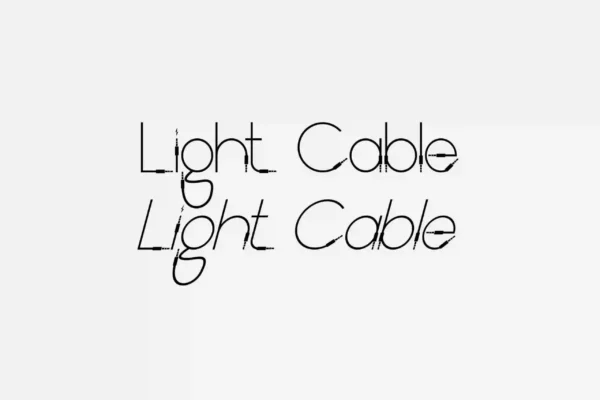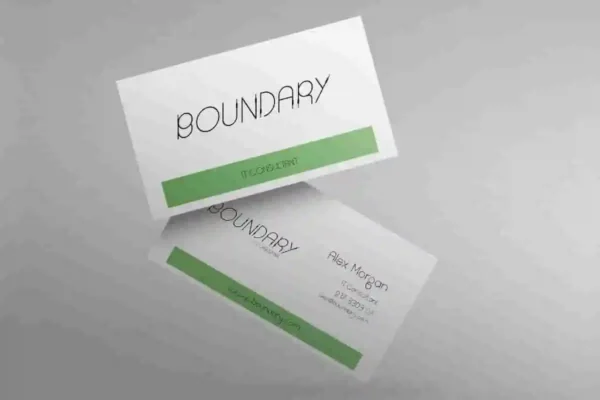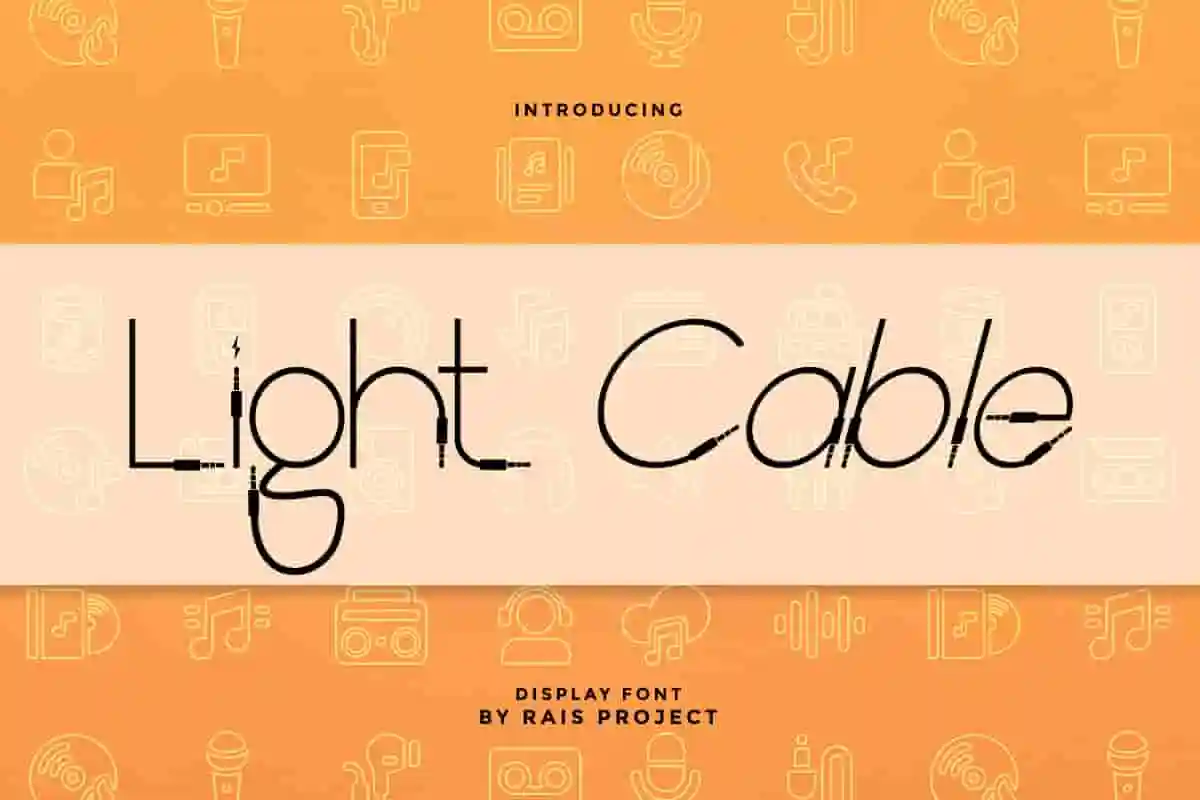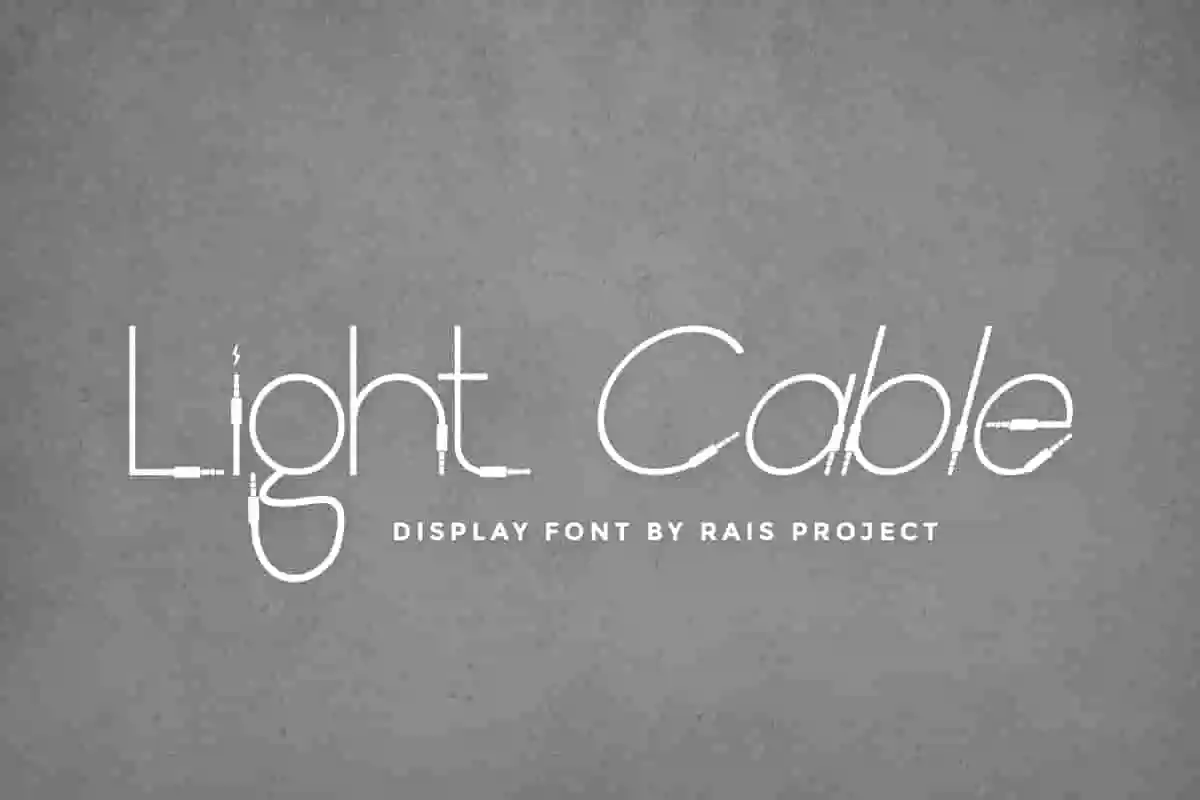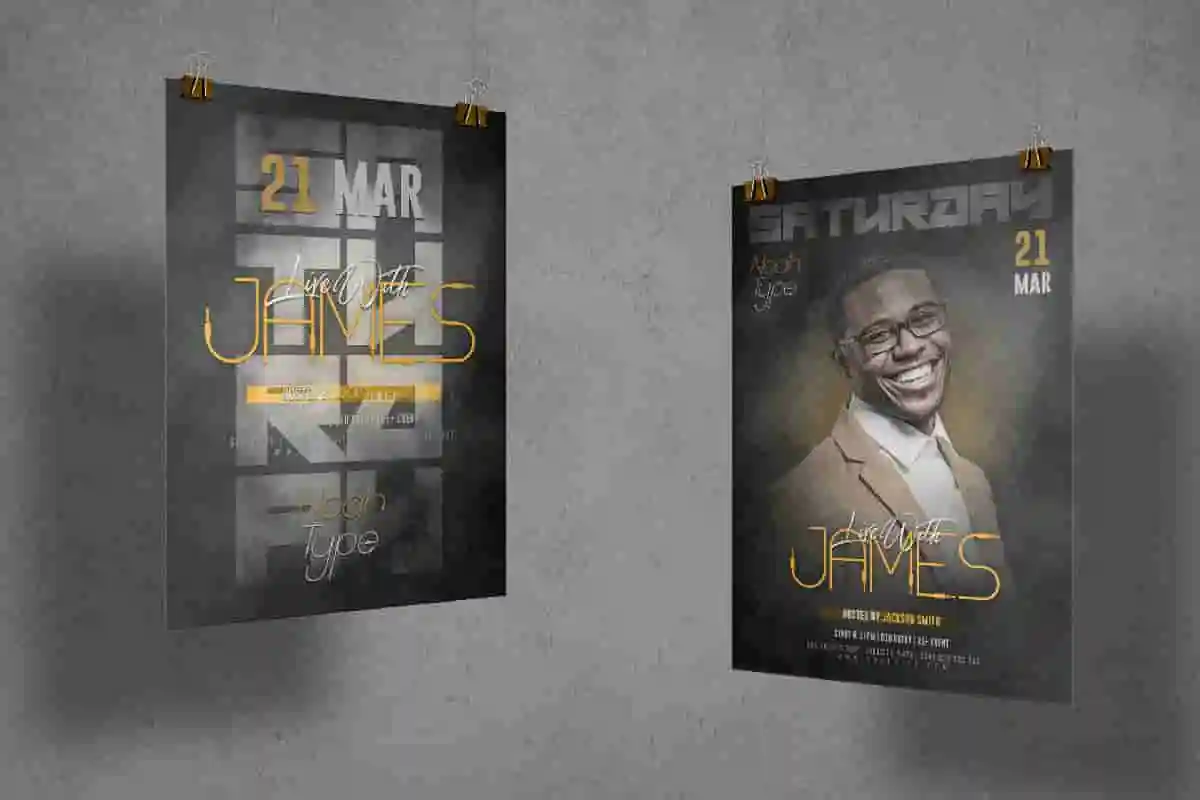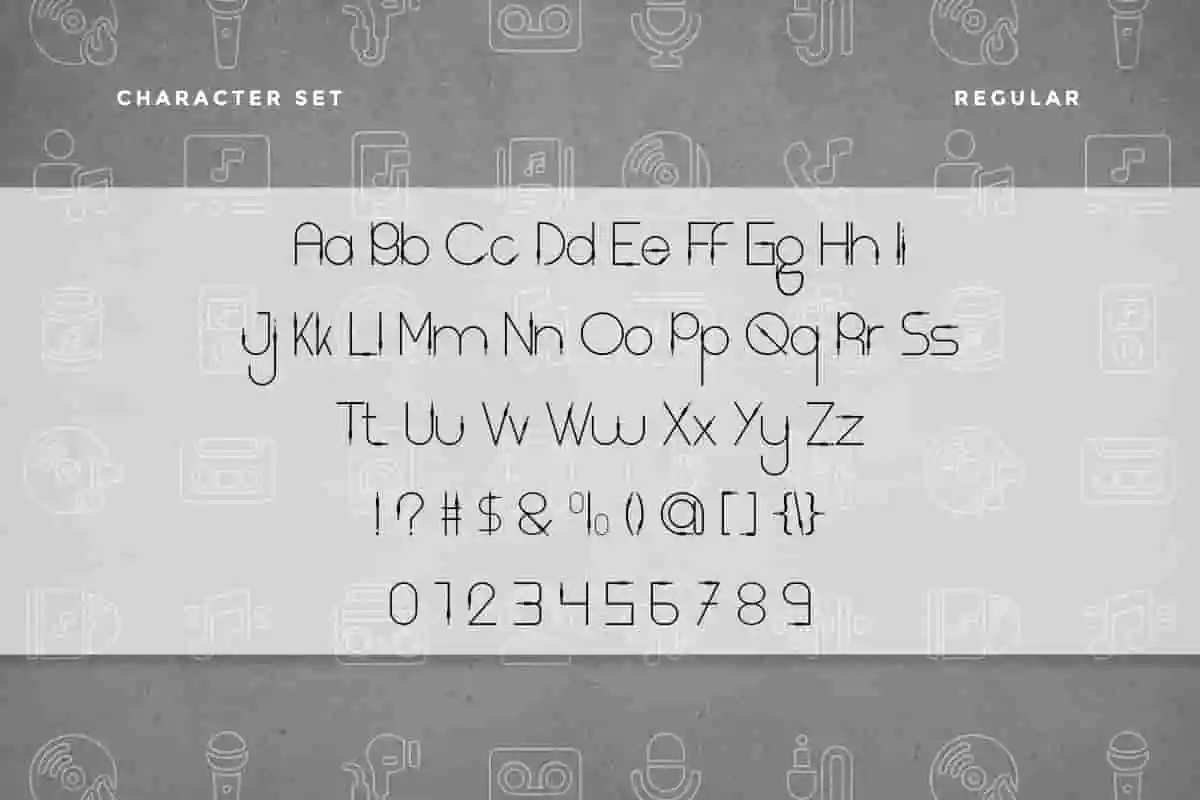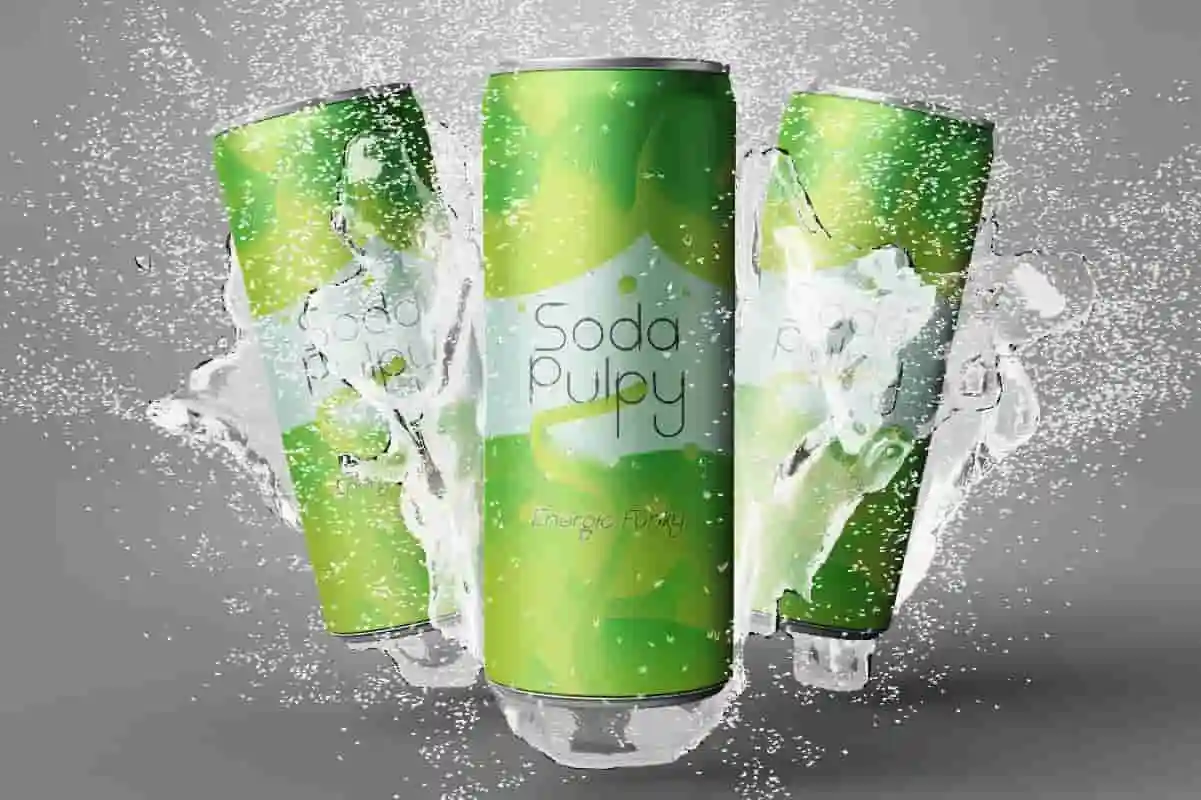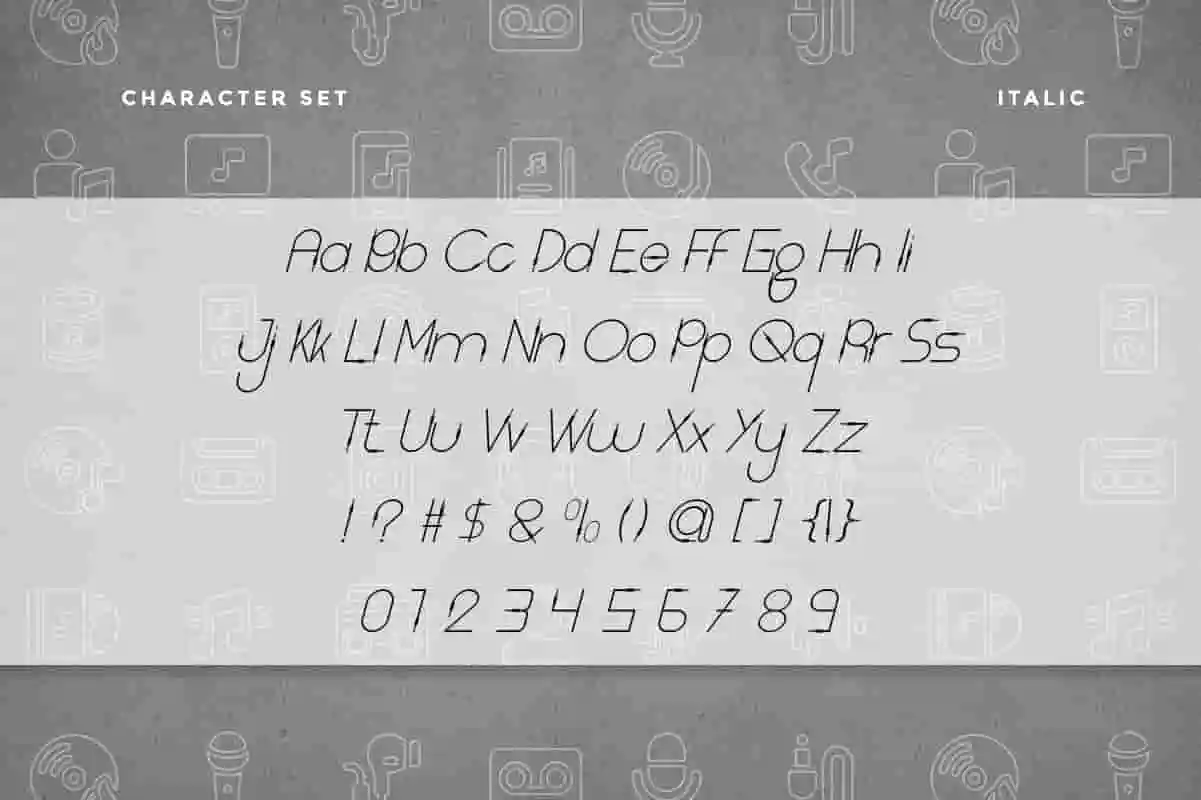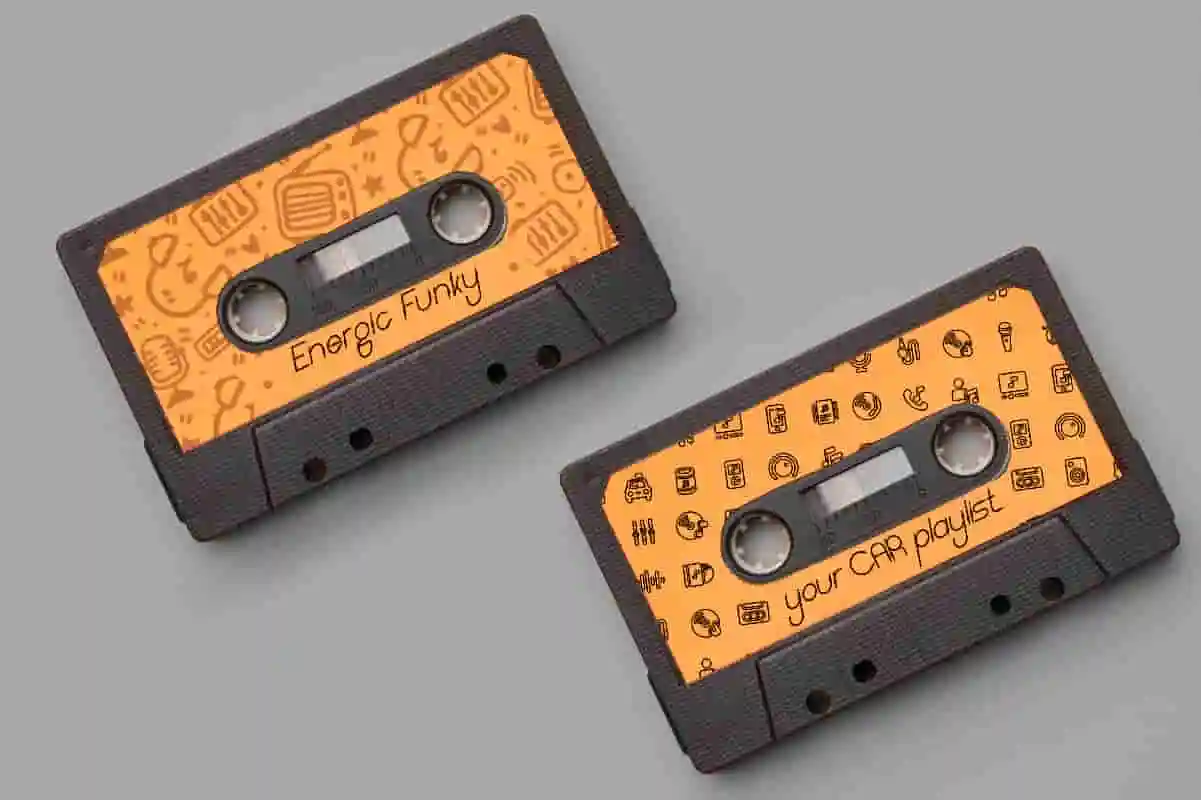
Light Cable Font
Light Cable Font is a decorative display font with unique cable jack display, designed by Rais Project. Great for signage, logotype, brochure or any project with hand lettered feel.
Light Cable Font is remotely made in Bandung and Garut, two beautiful cities in Indonesia. The font was handcrafted for any your special projects including : headlines, promotion, events, branding, advertising, magazine, signage, invitation, stationery, social media posts, label, or and any projects that need unique strong style. The theme/industries of this font is Horror, Movie, Game, Magazine, Music, Video etc
Light Cable Font includes full set of gorgeous uppercase and lowercase letters, numerals, a large range of punctuation and ligatures. All lowercase letters include beginning and ending swashes, giving a strong unique style.